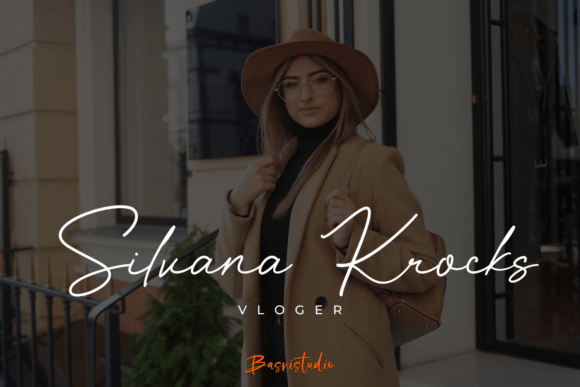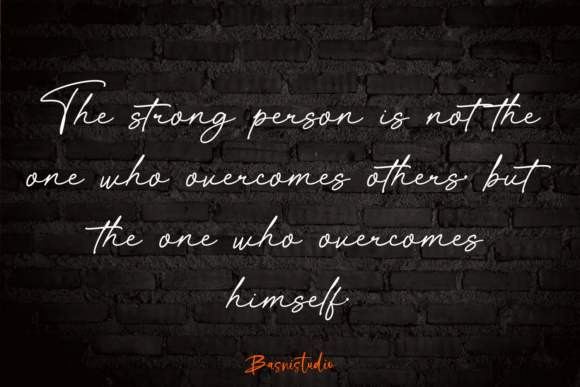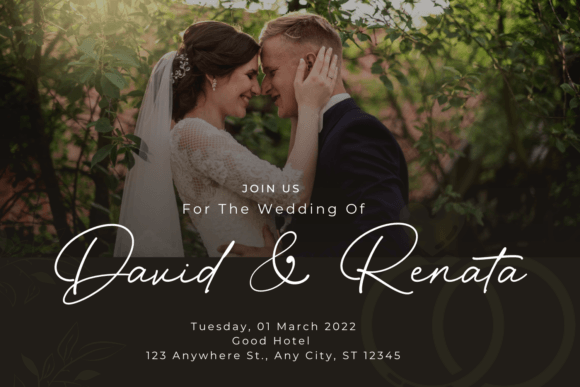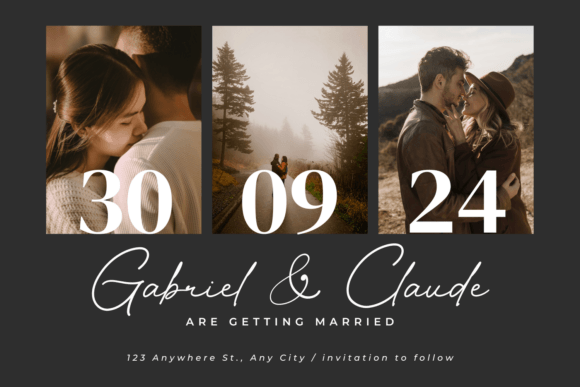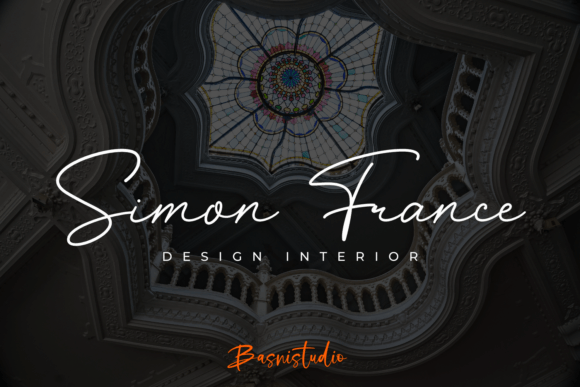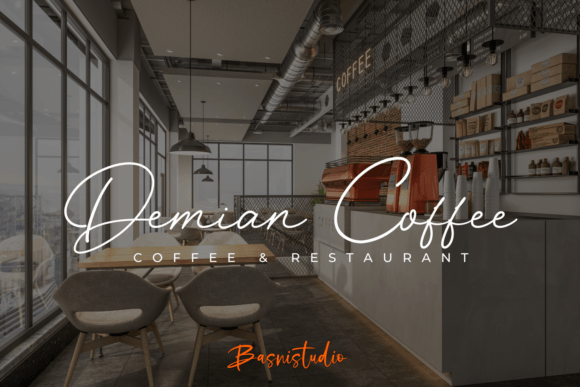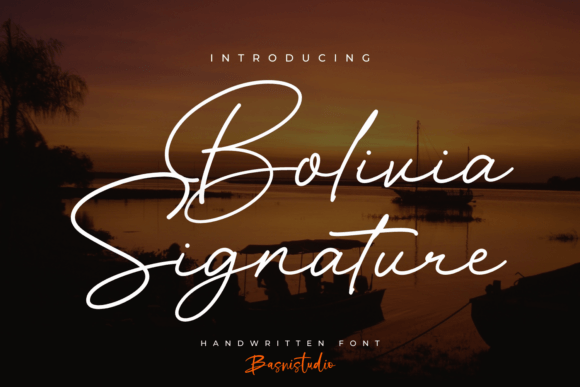
Introducing Bolivia Signature Font: Elevate Your Design with Elegance and Precision
In the world of typography, a font can make or break the visual identity of a brand, website, or editorial content. For designers and crafters seeking a unique and sophisticated touch, Bolivia Signature Font emerges as a game-changer. Crafted with a natural flow and precision, this font is tailored to meet the demands of modern design, offering a versatile solution for branding, websites, and editorial projects.
What Makes Bolivia Signature Font Stand Out?
Bolivia Signature Font is not just another addition to the vast sea of typefaces. It is meticulously designed to bring a level of elegance and sophistication to any project. Here are some key features that set it apart:
- Natural Flow and Precision: The font is designed to mimic the natural flow of handwriting, providing a personal touch that resonates with audiences. At the same time, it maintains a level of precision that ensures clarity and readability across various applications.
- Inclusive Character Set: Bolivia Signature Font includes all character letters, ensuring that designers have a comprehensive set of characters at their disposal. This inclusivity extends to multilingual support, making it a versatile choice for global brands and projects.
- Multilingual Support: In today’s globalized world, a font that supports multiple languages is indispensable. Bolivia Signature Font rises to the challenge, offering extensive multilingual support that caters to diverse linguistic needs.
- Punctuation and Ligatures: The font comes equipped with a range of punctuation marks and ligatures, allowing designers to add nuances and personality to their text. These features contribute to the creation of visually appealing and engaging content.
- OpenType Features: Bolivia Signature Font is designed to take full advantage of OpenType features in compatible software. This means that designers can access a wide range of typographic features, enhancing the font’s versatility and creative potential.
Applications of Bolivia Signature Font
The versatility of Bolivia Signature Font makes it suitable for a variety of design applications:
- Branding: For brands looking to establish a unique visual identity, Bolivia Signature Font offers a distinctive and memorable style that can be used across all brand materials.
- Websites: The font’s readability and aesthetic appeal make it an excellent choice for web design, enhancing the user experience and adding a professional touch to any website.
- Editorial Design: For editorial projects such as magazines, newspapers, and books, Bolivia Signature Font provides a sophisticated and engaging reading experience.
Why Choose Bolivia Signature Font?
Choosing the right font for a project can be daunting, given the multitude of options available. Here are a few reasons why Bolivia Signature Font should be at the top of your list:
- Elegance and Versatility: The font combines elegance with versatility, making it suitable for a wide range of design projects.
- Time-Saving: With its comprehensive character set and OpenType features, Bolivia Signature Font streamlines the design process, saving time and effort.
- Professionalism: The font’s precision and natural flow contribute to a professional finish, elevating the quality of any project.
Bolivia Signature Font is a remarkable addition to the world of typography, offering designers and crafters a unique tool to enhance their projects. With its natural flow, precision, and extensive feature set, it is poised to become a go-to choice for branding, websites, and editorial design. Whether you’re looking to add a personal touch or elevate your design with sophistication, Bolivia Signature Font is an excellent choice.
Discover the creative possibilities with Bolivia Signature Font and take your design to the next level.